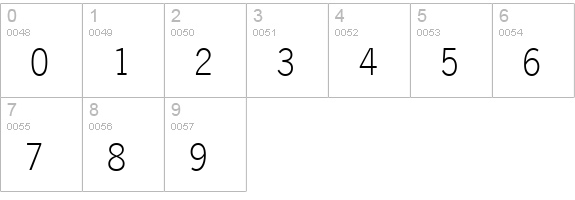
Newcastle-Light-Regular is a refined, elegant variant in the Newcastle typeface family \xE2\x80\x94 well suited to elegant body text, refined sub-headings, and luxury branding.
Newcastle Light Regular font is a modern and elegant typeface that exudes sophistication and simplicity. With its clean lines and balanced proportions, this versatile font is perfect for a wide range of design projects, from branding to editorial design. The Newcastle Light Regular font offers a sense of modernity while maintaining a classic appeal, making it a popular choice among designers and creatives. Best of all, Newcastle Light Regular font is available for free download at FontsMarket.com. This means you can easily access and use this stunning font in your projects without any additional cost. Whether you're working on a personal or commercial project, Newcastle Light Regular font is a great choice for adding a touch of sophistication and style to your design work. Download Newcastle Light Regular font today and elevate your designs to the next level!